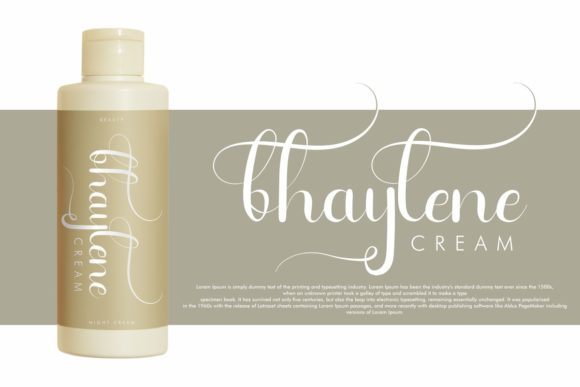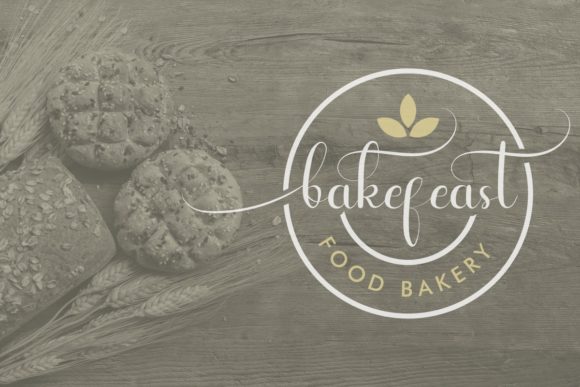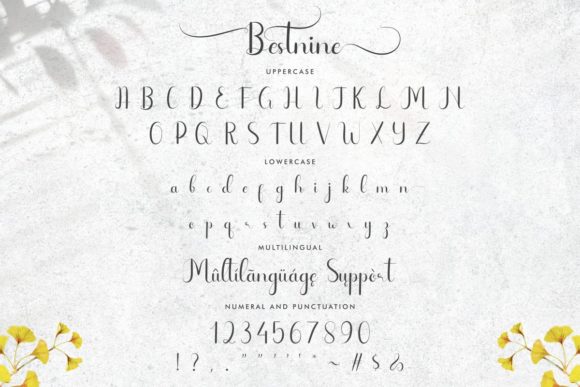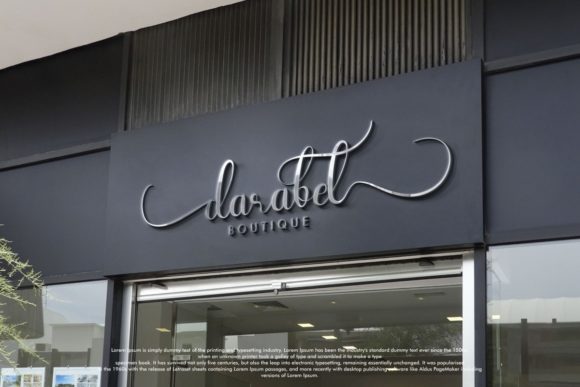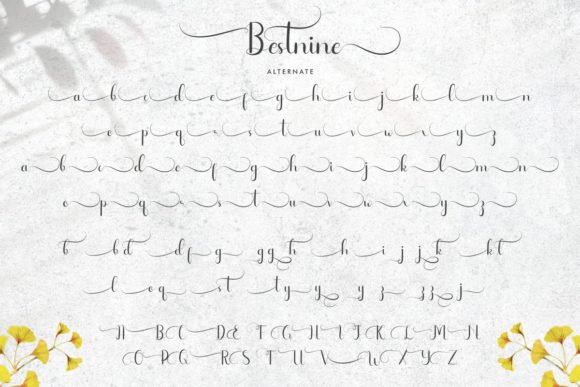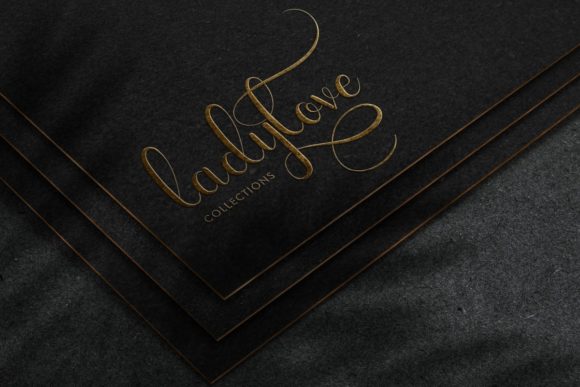
Discover the Elegance of Bestnine Font: A Lovely Script Font for Your Designs
Are you tired of using the same old fonts in your designs? Look no further! Bestnine Font is a beautiful and delicate script font that can add a touch of elegance and class to your creations. In this article, we’ll dive into the features and benefits of Bestnine Font, and explore how it can elevate your designs to the next level.
What is Bestnine Font?
Bestnine Font is a lovely and delicate script font that exudes elegance and class. This font was particularly crafted for those who need a beautiful and refreshing look to their designs. Whether you’re a designer, crafter, or DIY enthusiast, Bestnine Font is the perfect choice for anyone looking to add a touch of sophistication to their work.
Key Features of Bestnine Font
So, what makes Bestnine Font so special? Here are some of its key features:
- PUA Encoded: Bestnine Font is PUA (Private Use Area) encoded, which means you can access all of the glyphs and swashes with ease. This makes it easy to use and customize the font to suit your needs.
- Delicate and Elegant: Bestnine Font has a delicate and elegant feel to it, making it perfect for designs that require a touch of sophistication.
- Script Font: Bestnine Font is a script font, which means it’s perfect for adding a personal touch to your designs.
- Refreshing Look: Bestnine Font has a refreshing look that will make your designs stand out from the crowd.
Benefits of Using Bestnine Font
So, why should you use Bestnine Font in your designs? Here are some of the benefits:
- Adds Elegance and Class: Bestnine Font adds a touch of elegance and class to your designs, making them perfect for high-end projects.
- Customizable: With PUA encoding, you can easily access and customize the glyphs and swashes to suit your needs.
- Versatile: Bestnine Font is versatile and can be used in a variety of designs, from wedding invitations to branding and packaging.
Who Can Use Bestnine Font?
Bestnine Font is perfect for anyone who needs a beautiful and elegant script font for their designs. Here are some examples of who can use Bestnine Font:
- Graphic Designers: Graphic designers can use Bestnine Font in a variety of projects, from branding and packaging to advertising and marketing materials.
- Crafters: Crafters can use Bestnine Font in their DIY projects, such as handmade cards, invitations, and gift tags.
- Wedding Planners: Wedding planners can use Bestnine Font in wedding invitations, programs, and other wedding materials.
- Small Business Owners: Small business owners can use Bestnine Font in their branding and marketing materials, such as logos, business cards, and brochures.
In conclusion, Bestnine Font is a lovely and delicate script font that exudes elegance and class. With its PUA encoding, delicate and elegant feel, and refreshing look, it’s perfect for designers, crafters, and DIY enthusiasts who need a beautiful and sophisticated font for their designs. Whether you’re creating wedding invitations, branding materials, or DIY projects, Bestnine Font is the perfect choice. So why wait? Download Bestnine Font today and elevate your designs to the next level!